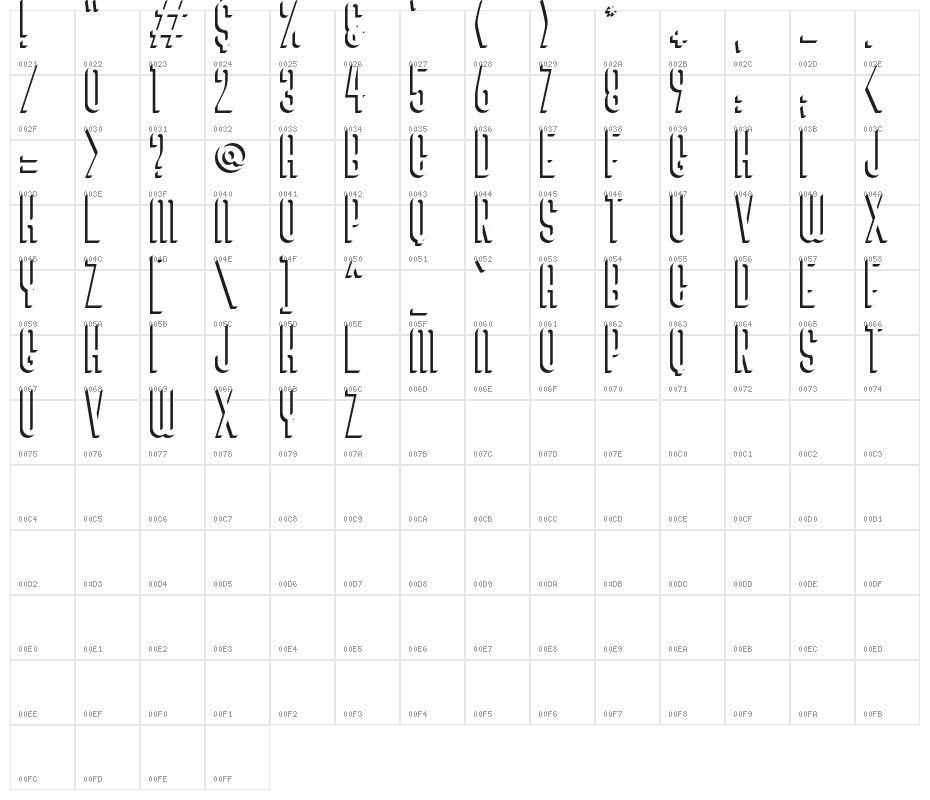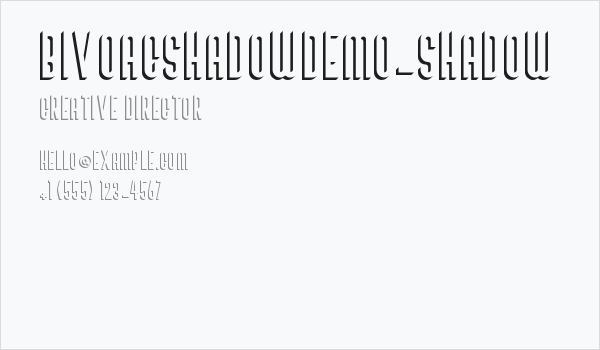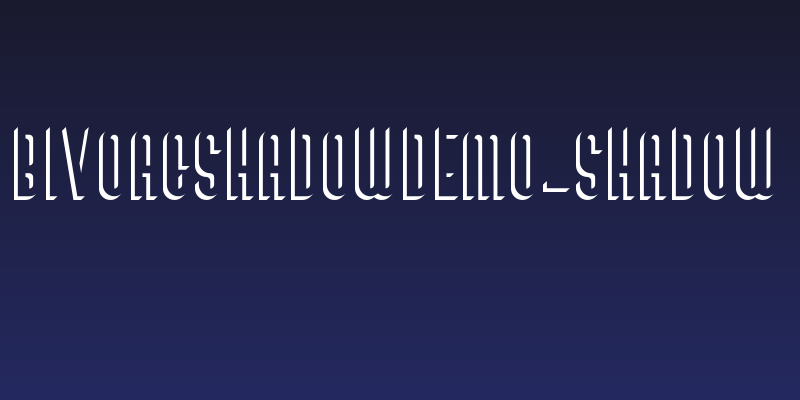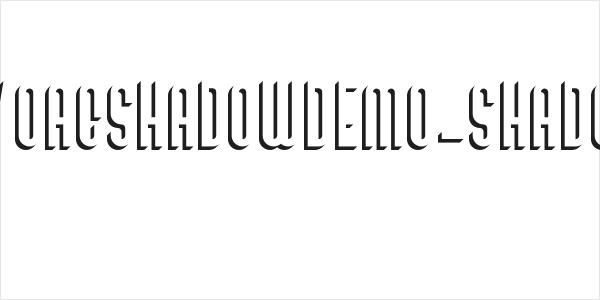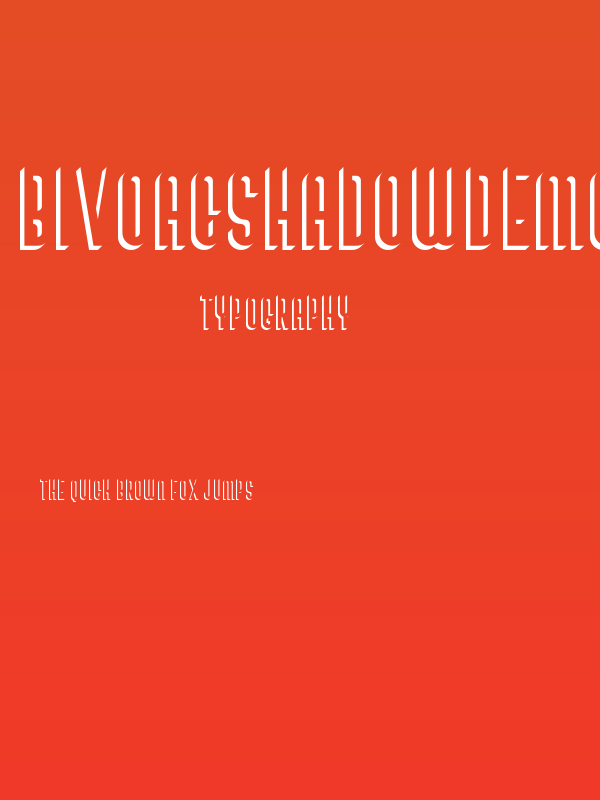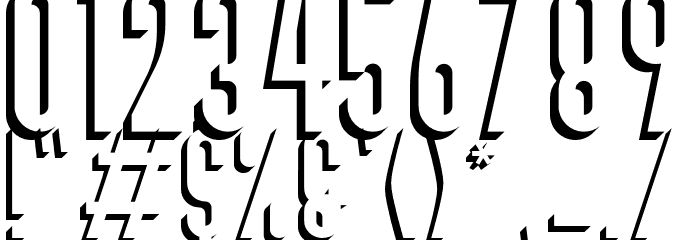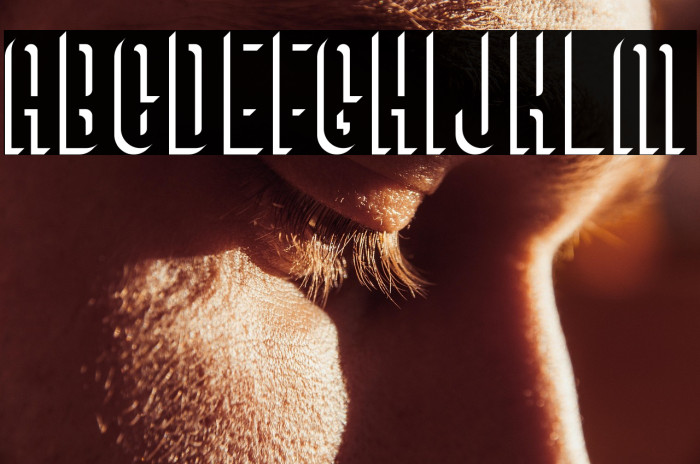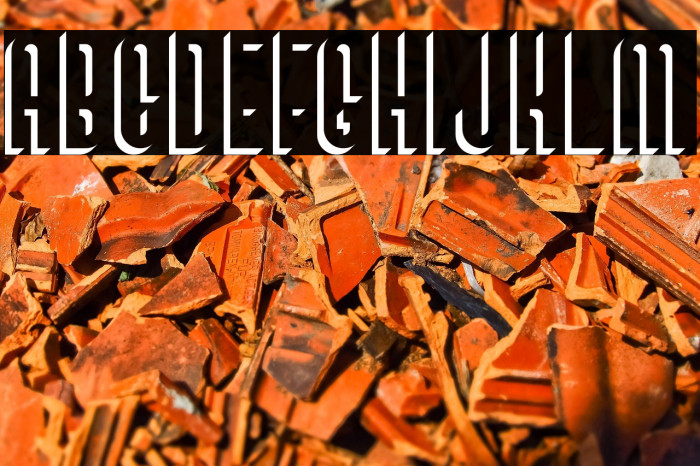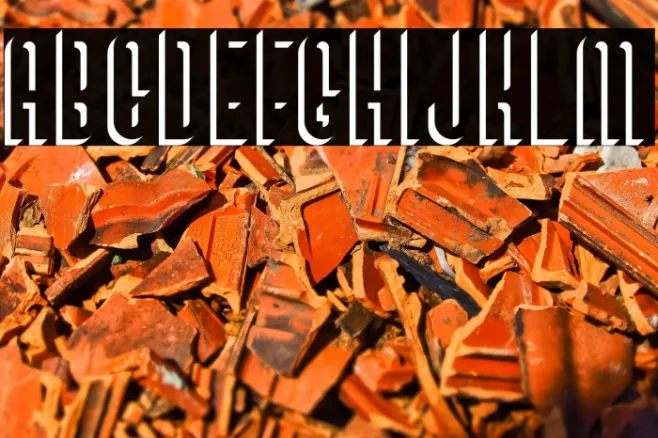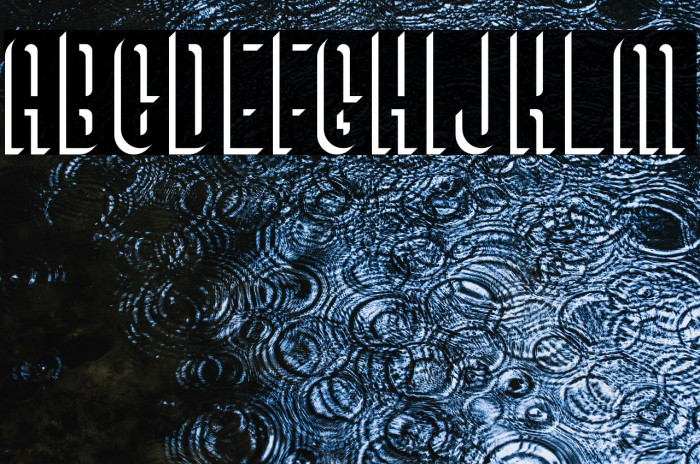
BivoacShadowDemo-Shadow Font
This font features a bold, shadowed design that gives a three-dimensional effect, making each character stand out with a striking presence. The uppercase and lowercase letters maintain a consistent height and width, providing a uniform appearance. The shadow effect is achieved through a clever use of negative space, creating a sense of depth and movement. The numbers and special characters follow the same stylistic approach, ensuring a cohesive look across all elements. This font's unique style makes it ideal for eye-catching designs where the text needs to make a strong visual impact.
| Proposed Projects | Ideal for posters, headlines, logos, and any design requiring a bold statement. |